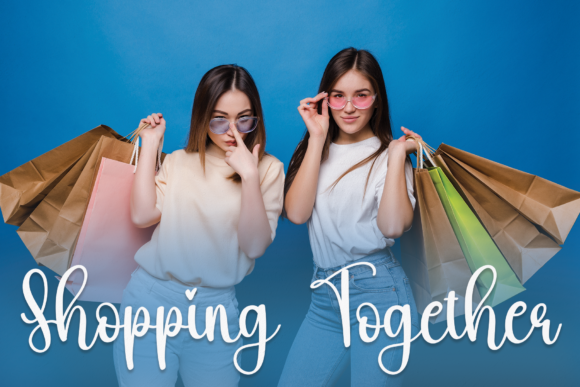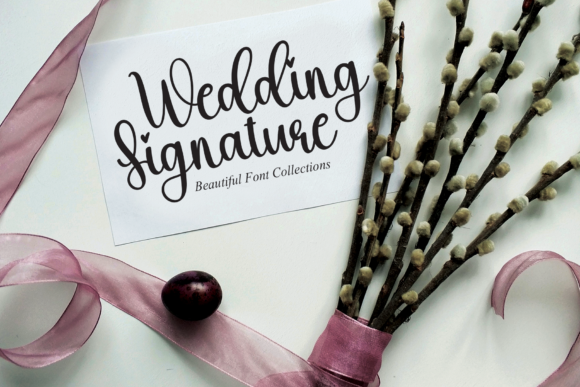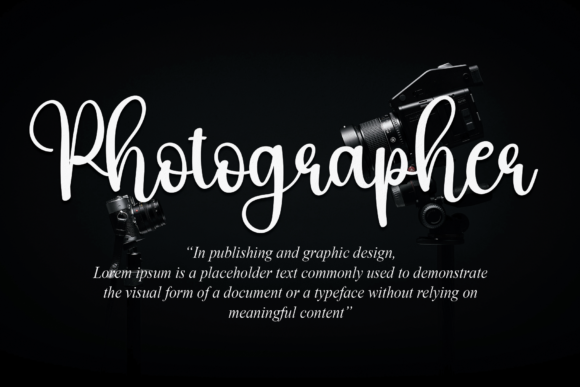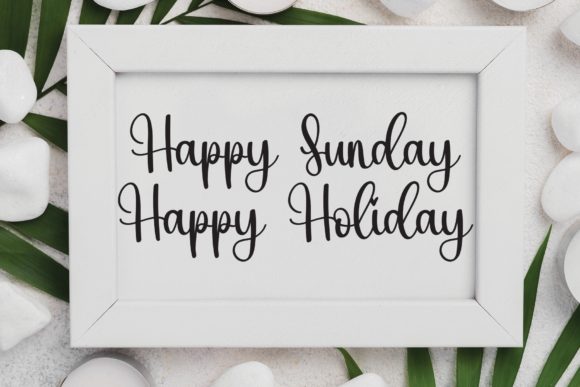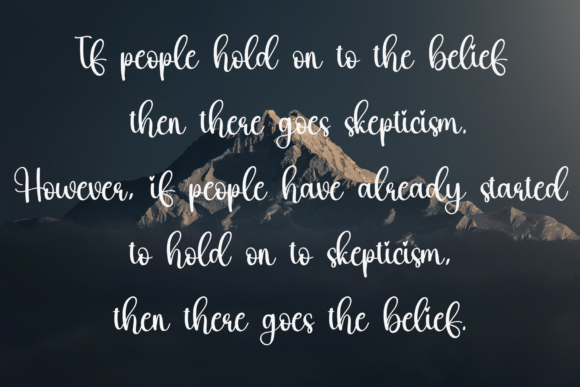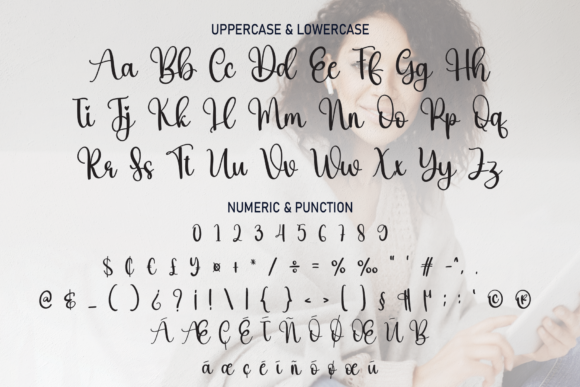
Bring Your Designs to Life with the Unique Charm of Afro Font
Have you ever stared at a blank page, waiting for inspiration to strike? It’s that moment of creative desperation when you’re searching for the perfect font to elevate your design from ordinary to extraordinary. You browse through font libraries, and then, suddenly, you stumble upon it – Afro Font. Its playful, handwritten style is the perfect catalyst to turn your design idea into a true showstopper.
Afro Font is more than just a font – it’s a design companion that helps you create lovely, one-of-a-kind designs. Its unique charm is what sets it apart from other fonts, making it an invaluable asset for designers looking to add a personal touch to their work. Whether you’re working on a branding project, a social media campaign, or a digital product, Afro Font is the perfect addition to bring your designs to life.
• Unique Characteristics: Afro Font is designed to evoke the spirit of African culture, with intricate details and ornaments that reflect the continent’s rich heritage.
• Font Weight and Style: Afro Font offers various font weights, from Light to Extra Bold, and styles, including Regular, Italic, and Bold Italic, allowing for flexibility in design and layout.
• Scalability: Afro Font is designed to be highly scalable, ensuring that it remains legible and visually appealing at various sizes and resolutions.
Afro Font Review
I recently had the chance to work with the Afro Font, and I must say it’s an interesting addition to the world of typography. Here’s my honest review.
• The Afro Font’s unique and bold design is perfect for creating eye-catching headlines and titles.
• The font’s custom letterforms add a touch of personality and cultural significance, making it a great choice for projects that require a distinctive look.
• The font is well-suited for digital use, with clear and readable characters at various sizes and resolutions.
• The font’s bold design may not be suitable for body text, as it can be difficult to read at smaller sizes.
• The custom letterforms may not be ideal for projects that require a high level of consistency and standardization.
Overall, the Afro Font is a great choice for designers looking to add a touch of cultural flair to their projects. While it may have some limitations, its unique design and custom letterforms make it a valuable addition to any typographer’s toolkit.
The Afro font is ideal for:
• Celebrating African culture and heritage.
• Designing social media posts and graphics related to Africa or African-American issues.
• Creating a unique and eye-catching visual identity for a brand or organization.